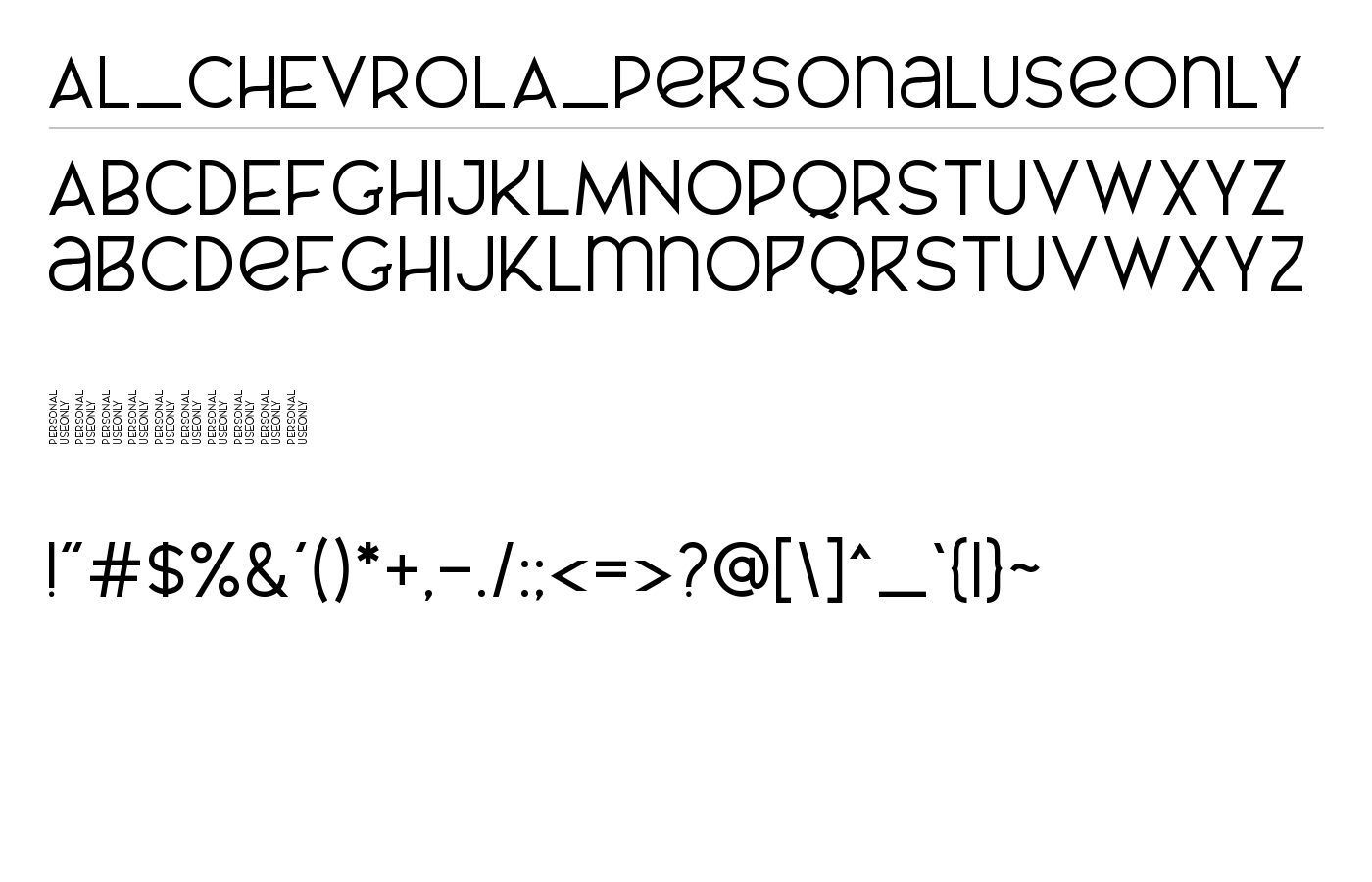
AL_CHEVROLA_PersonalUseOnly is a unique sans serif font with a modern, geometric aesthetic. Its light weight and tall x-height combined with subtle curves and angled details give it a sleek, contemporary feel perfect for creative branding, headlines, and display use where a distinctive, stylish look is desired. The font’s elegant simplicity makes it suitable for fashion, art, and editorial projects seeking a fresh and refined personality.
AL_CHEVROLA_PersonalUseOnly Font